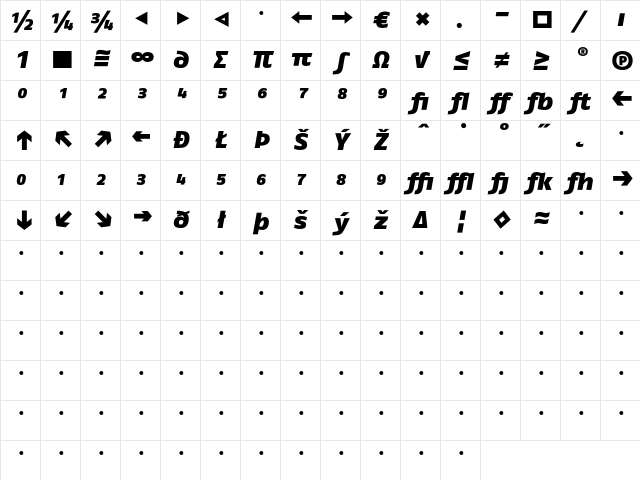
FagoEx BlackItalicExp
Style: BlackItalicExp
Design Context for FagoEx
FagoEx is a composed and adaptable typeface that performs quietly and consistently across a wide range of design contexts. The slanted form adds forward momentum and visual energy.
Pro Tip: Use FagoEx for emphasis, pull quotes, and subheadings where its slanted energy can add rhythm to the layout.